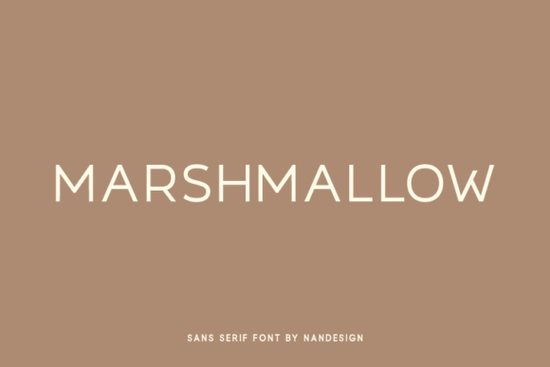
Marshmallow Font is a versatile sans serif typeface that brings a soft, elegant feel to any design project. Whether you're creating a logo, designing an invitation, or working on a wedding layout, this font offers a clean and modern look that’s easy to read and visually appealing. Its uppercase alphabet, along with numbers and symbols, makes it ideal for a wide range of applications. If you’re looking for a font that can enhance your creative work, Marshmallow Font is a great choice.
Designers and crafters often seek fonts that are both functional and stylish. Marshmallow Font fits that need perfectly. It works well in digital and print formats, making it suitable for everything from social media posts to business cards. Its simplicity allows it to pair well with other fonts, giving you more flexibility in your design process. For those who want to add a touch of warmth and sophistication to their projects, this font is a reliable option.
One of the key advantages of Marshmallow Font is its readability. Even though it’s a sans serif, it maintains a clear structure that makes it easy to use in headings, banners, and other display purposes. This makes it especially useful for print-on-demand sellers who need fonts that look good in both digital and physical formats. The font’s consistency across different sizes ensures that it remains legible no matter where it’s used.
For small businesses and creative hobbyists, having access to high-quality fonts can make a big difference in how your brand is perceived. Marshmallow Font provides a professional look without requiring complex design skills. It’s a great tool for anyone who wants to elevate their visual content without spending too much time on typography. Whether you’re designing a website, a flyer, or a personal project, this font can help you achieve a polished result.
When choosing a font for your next project, consider how it will fit with your overall design. Marshmallow Font is a safe and effective choice for most applications, but it’s always a good idea to test it in different contexts. Try using it in various sizes and backgrounds to see how it performs. This will help you determine whether it’s the right fit for your specific needs.
If you’re new to using sans serif fonts, you may want to start by experimenting with a few different options. This will give you a better sense of how each one looks and feels. You can also look for tutorials or guides that explain how to use fonts effectively in different design scenarios. With a little practice, you’ll be able to make more informed decisions about which fonts to use for your projects.
- Test Marshmallow Font in different sizes and layouts
- Consider how the font will look in both digital and print formats